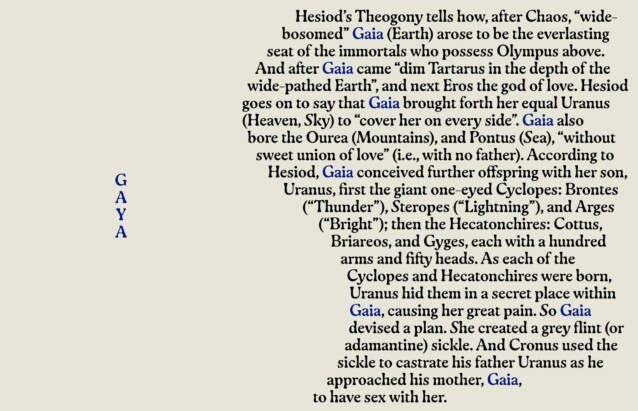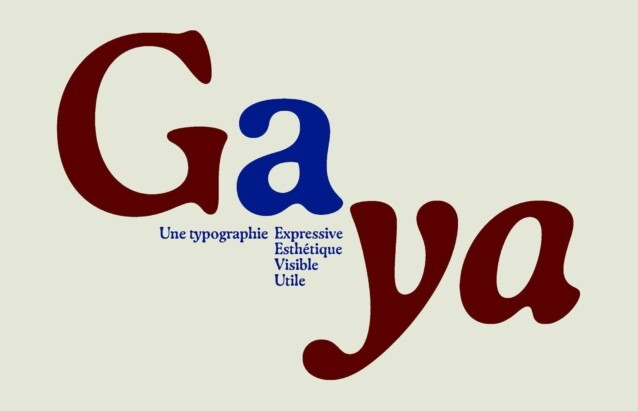
Gaya Font
Gaya Font is a whimsically rounded serif font radiating an inviting essence. The kind of use that shapes them to our hands and gives them so much personality. Its design seeks to capture the appearance of those objects whose forms testify to longevity and efficiency.
Its organic appearance originates from the study of the effects of blur on typography. The result is curved shapes that harmonize with the round forms, creating a fluid expression. This expression is further emphasized in the italic style and is reinforced by a large number of ligatures.
The warm shapes of Gaya follow the structure of text characters. Its precise design ensures good legibility and balanced typographic texture. Gaya finds her way between independent artistic projects and visual identities for cultural institutions. The typeface has been commercially available since 2020 and is used, for example, in the communication of concert halls and festivals, as well as in the layout of books and magazines.